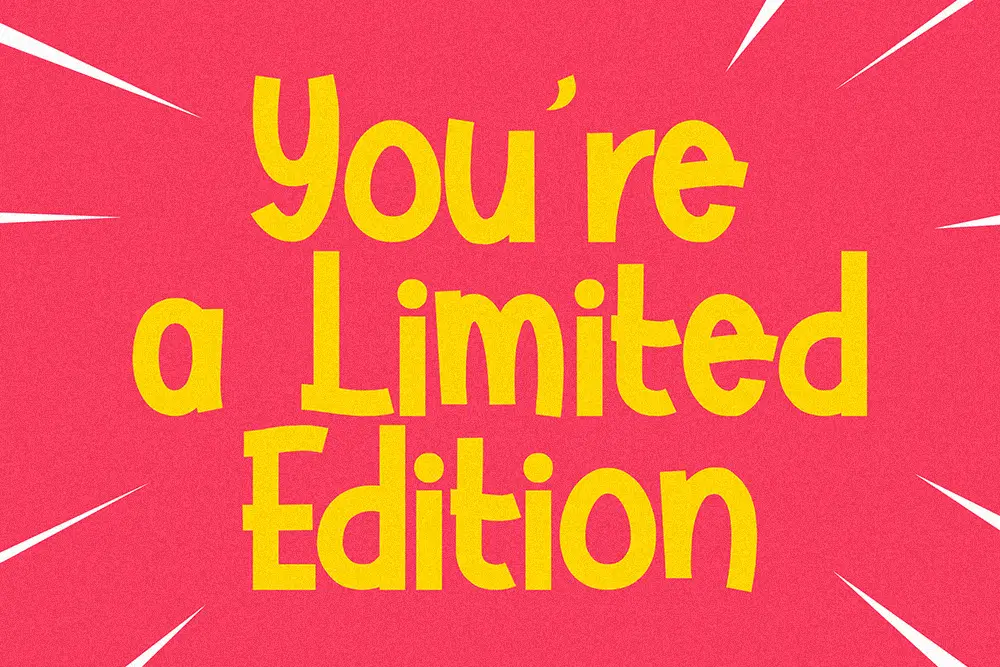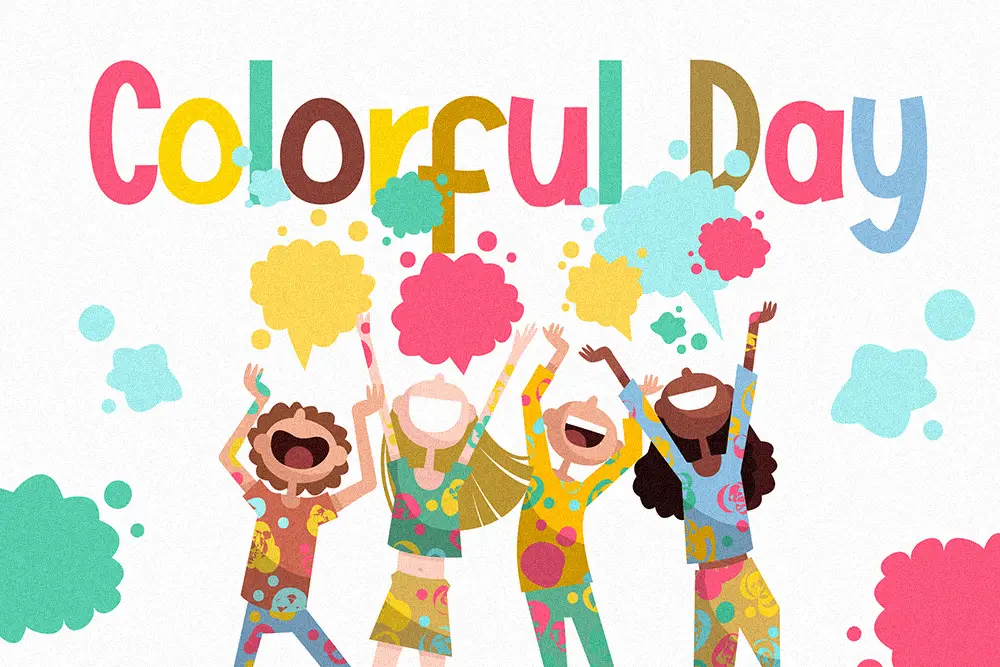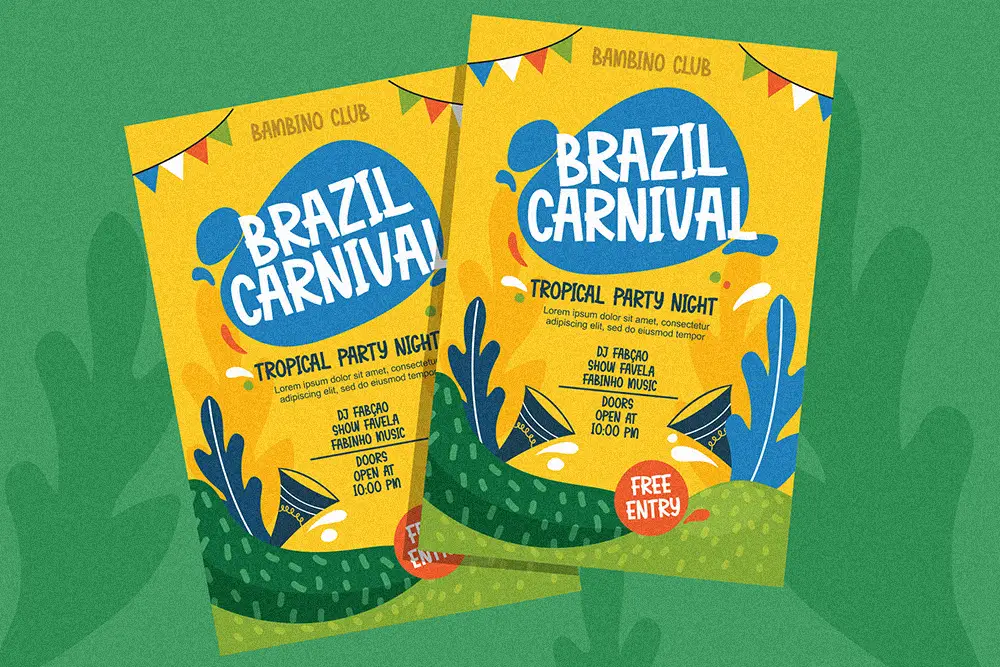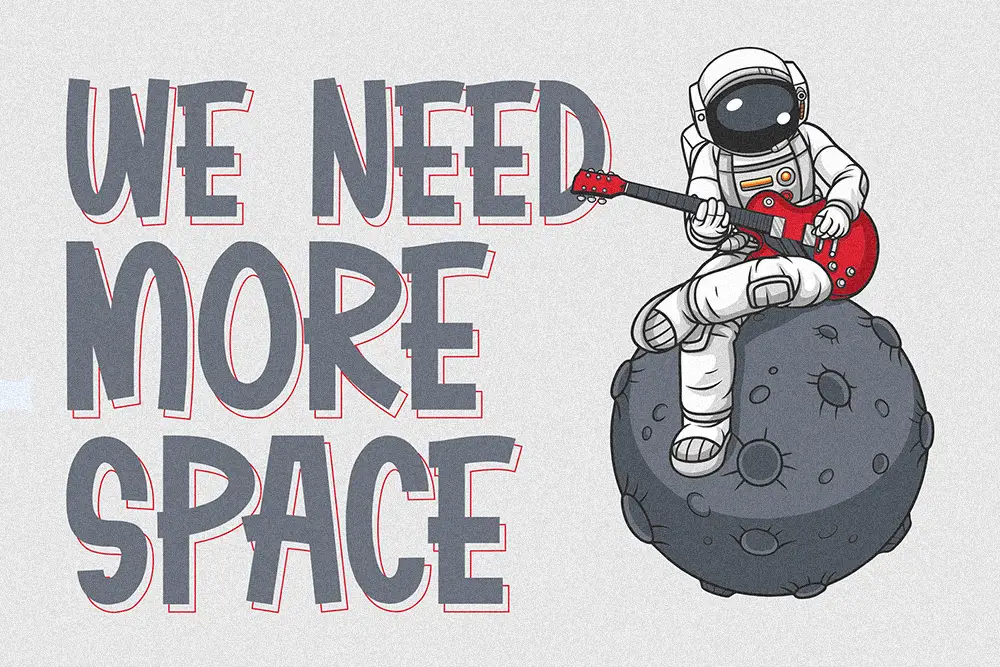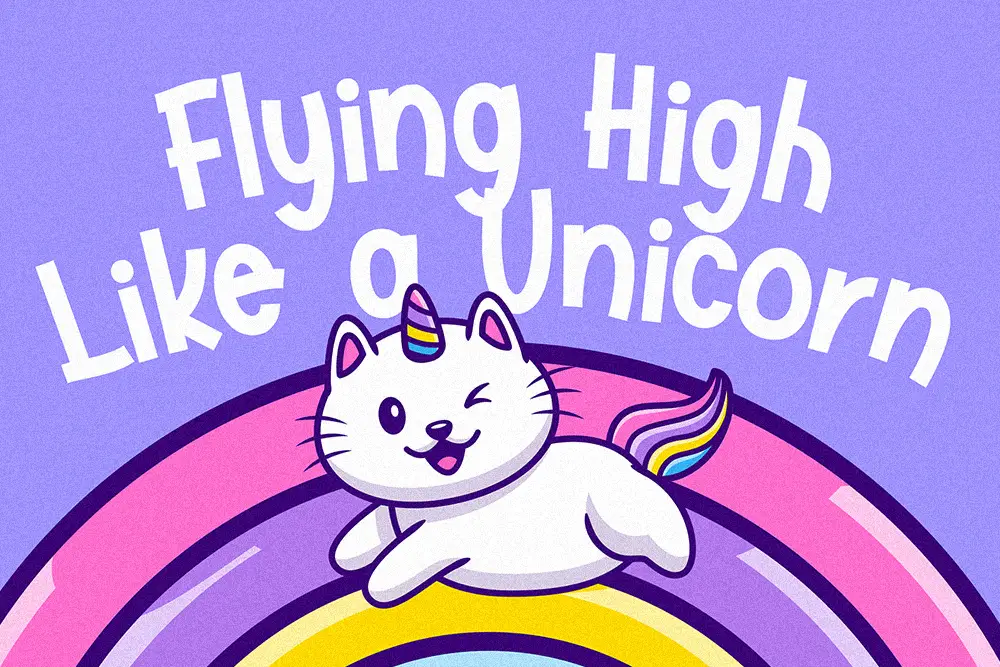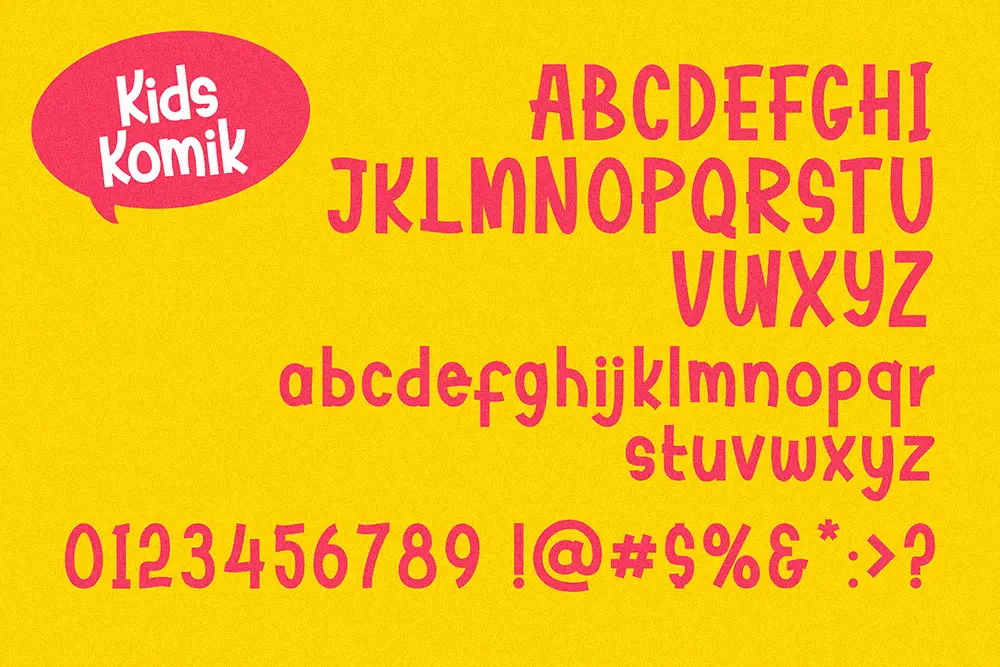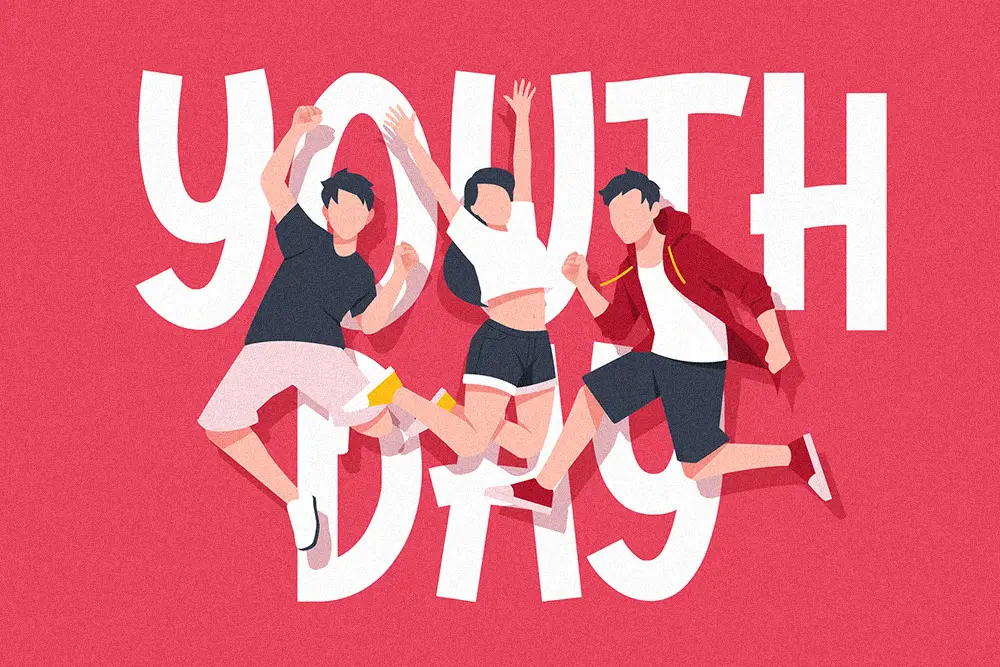
Kids Komik – Cartoon Display Font for Playful Creative Projects
Typography shapes how we feel about a design, and nothing captures joy quite like a cartoon display font. Kids Komik – Cartoon Display Font is designed to bring fun, imagination, and boldness into creative projects. With its chunky strokes, playful curves, and comic-inspired personality, this typeface is perfect for children’s books, school posters, kid-friendly logos, and colorful branding.
As a cartoon display font, Kids Komik balances legibility with creativity. The font makes reading fun while giving your projects a lively energy. Whether it’s for classroom activities, comics, or digital storytelling, Kids Komik delivers the playful spirit that young audiences love.
Cartoon Display Font with Fun Energy
Kids Komik was built for designers who want to express joy and creativity. This cartoon display font blends bold comic aesthetics with smooth curves, making it ideal for projects targeting kids and family audiences. Its whimsical personality creates a fun atmosphere, while its clear structure ensures easy readability.
Unlike generic fonts, Kids Komik carries a unique hand-drawn feel that makes every design stand out. If you want your project to communicate excitement and positivity, this cartoon display font is the perfect solution.
Key Features of Kids Komik – Cartoon Display Font
Here’s what makes this typeface essential for designers:
• Uppercase & Lowercase: Complete alphabet for versatile design needs
• Multilingual Support: Extended Latin characters for global projects
• Comic-Inspired Design: Chunky, playful strokes with hand-drawn style
• High Legibility: Fun yet easy to read in both print and digital media
• Versatility: Perfect for books, posters, school projects, and branding
Why Designers Love Kids Komik
Designers love Kids Komik because it goes beyond being a simple typeface. It’s a cartoon display font that helps tell stories in a way that feels approachable and engaging for kids.
Here’s why it’s a favorite:
• Playful Character: Adds fun and personality to designs.
• Family-Friendly: Great for projects aimed at kids, schools, and educational brands.
• Easy Pairing: Works beautifully with other playful typefaces like Kids Zone Layered Playful Font.
• Universal Appeal: Multilingual support makes it versatile for international use.
Kids Komik for Logos and Kids Branding
Branding aimed at children should feel cheerful and accessible. Kids Komik is the ideal cartoon display font for logos of toy shops, kids’ fashion brands, learning centers, and entertainment businesses. Its bold design ensures visibility while its comic-inspired feel makes the brand feel approachable and fun.
Pairing it with Kids Zone Layered Playful Font creates a delightful combination, perfect for packaging, signage, and online stores.
Kids Komik for Posters and Educational Projects
From school events to storytime promotions, posters need fonts that grab attention. Kids Komik shines in large layouts thanks to its bold curves and high readability. As a cartoon display font, it helps create posters that kids can relate to, whether for libraries, school programs, or children’s events.
Because it is designed with both uppercase and lowercase, it works well for both headlines and supporting text in educational projects.
Kids Komik for Books and Digital Media
Children’s books and comics rely on typography to tell stories. Kids Komik is perfect for book covers, chapter headings, and dialogue text. Its comic-inspired strokes bring characters to life while ensuring kids can easily read the content.
For digital creators, this cartoon display font works great in YouTube thumbnails, educational apps, and fun social media posts aimed at younger audiences. To explore more playful display fonts, check out Panduan Praktis Font Display: Biar Desainmu Makin Stand Out! on our blog.
• Font Name: Kids Komik – Cartoon Display Font
• Character Set: Uppercase, Lowercase, Numbers, Punctuation
• Category: Cartoon Display Font
• Best Uses: Kids Branding, Posters, Books, Educational Projects, Digital Media
Why Kids Komik is a Must-Have Cartoon Display Font
Trends in children’s design emphasize bold, playful, and friendly visuals. Kids Komik embodies all these qualities, making it one of the most relevant cartoon display fonts for today’s creative projects. Designers love it because it’s both fun and functional—great for projects that need to engage and educate young audiences.
Kids Komik – Cartoon Display Font is not just a typeface; it’s a storytelling tool. Its bold strokes, comic-inspired design, and family-friendly personality make it the perfect choice for children’s projects.
If you want your logos, posters, books, or digital content to sparkle with fun, Kids Komik is the font you need. Pair it with Kids Zone Layered Playful Font to unlock endless creative possibilities.